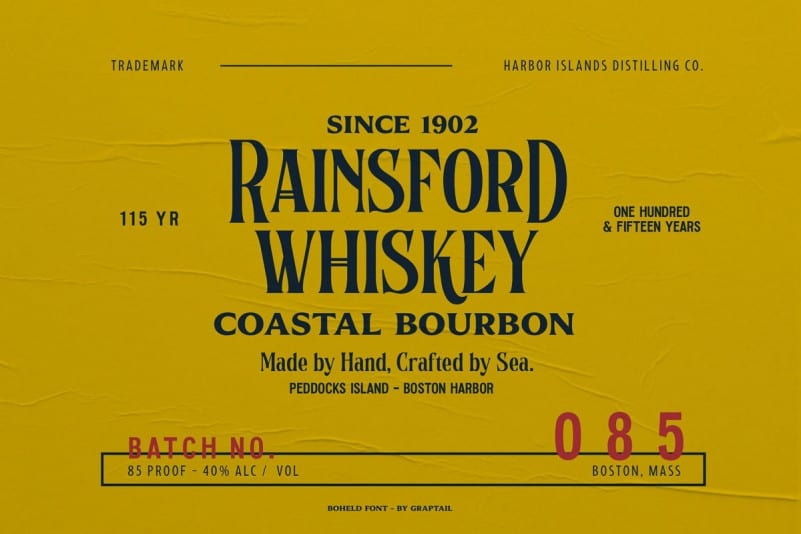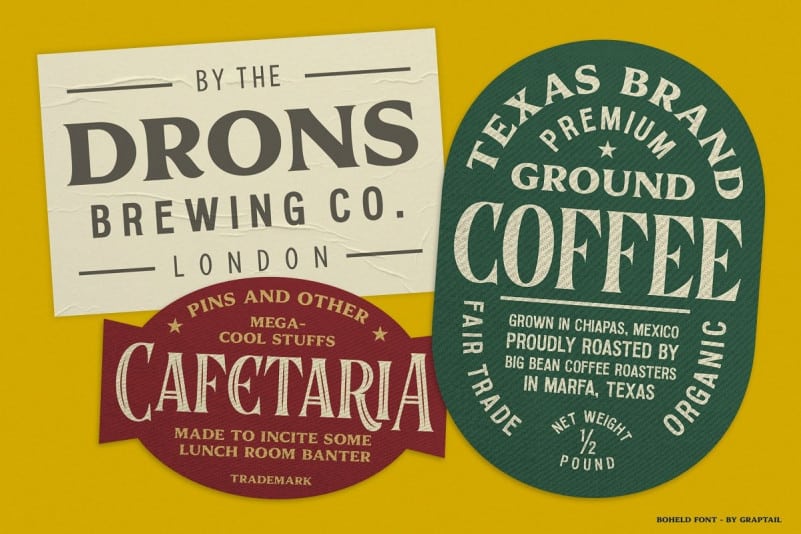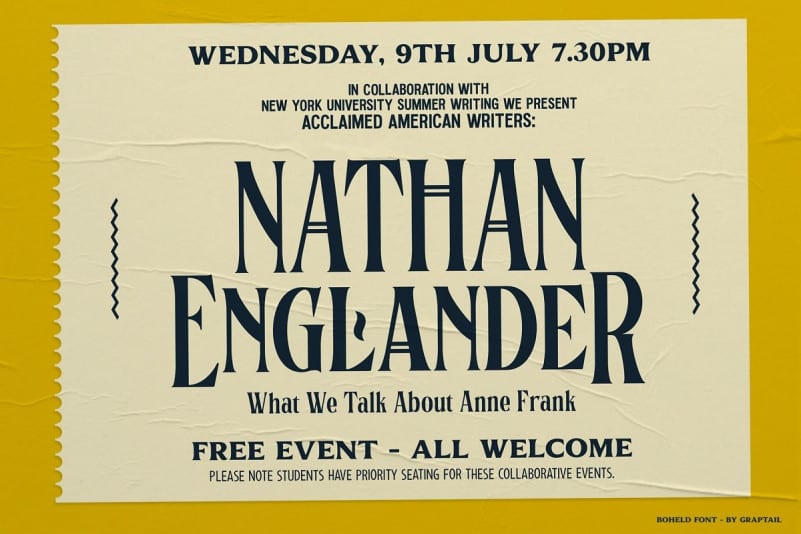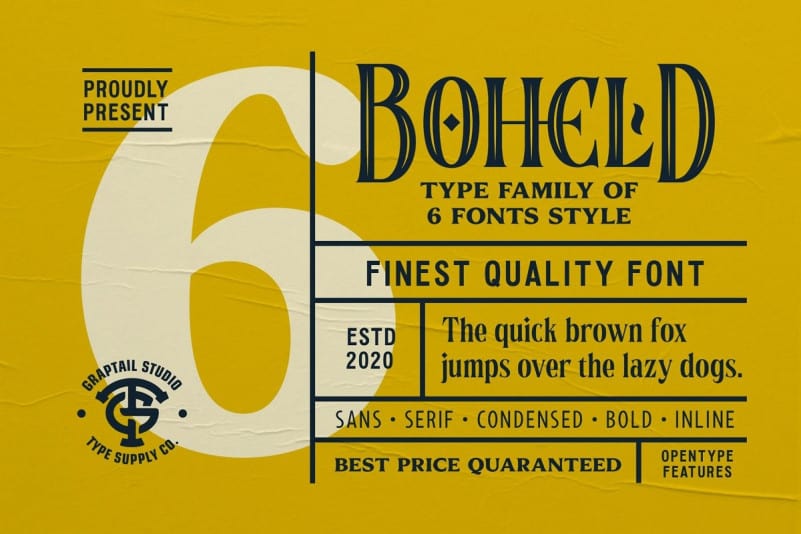
Boheld Serif Font
Boheld Serif Font is a new luxury display serif typeface. The beautifully smooth and elegant typeface with the high contrast of the letterforms that represents the glamour and majestic. It’s a font from the designer Graptail. Boheld Fonts Collection comes with 6 different form variations such as Sans, Serif, Bold, Condensed, and Inline. Inspired by classic labels, tickets, posters, etc. So much inspiration as you access it. All benefits you will feel when you start to create works with the Boheld fonts Collection. What are you waiting for, the best price and best quality we give you with pride.